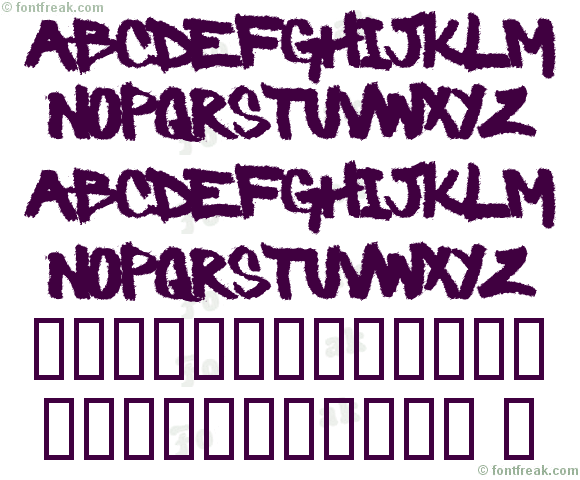
Barbaric
About Barbaric
The Barbaric font, designed by Chris Vile, is a striking display typeface that falls into the decorative category. Its bold, expressive character makes it an ideal choice for projects that require a strong visual impact. The font features a rough, hand-drawn appearance with uneven stroke weights and a high contrast between thick and thin lines. This creates a dynamic visual effect that captures attention while conveying a sense of raw energy and creativity. The letterforms are spaced to allow for readability, yet they maintain a tight, cohesive look that enhances their overall impact.
Barbaric is particularly well-suited for a variety of applications. Its unique style makes it perfect for movie posters, where it can evoke a sense of drama and excitement. Additionally, it can be used effectively in promotional materials for events such as music festivals or street art exhibitions. The font also shines in branding for craft breweries or artisanal products, where a rugged aesthetic aligns with the brand's identity. Moreover, it can add flair to restaurant menus, particularly for establishments that embrace a bold, unconventional theme.
What sets the Barbaric font apart is its ability to blend artistic flair with functionality. Whether used in digital designs or print media, it stands out with its raw, energetic vibe, making it a valuable addition to any designer's toolkit. For those interested, a Barbaric font free download is readily available, inviting creativity and innovation in various design endeavors.